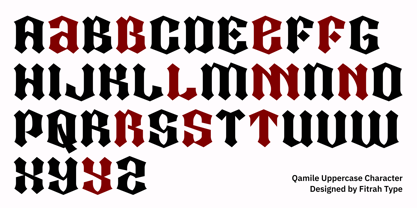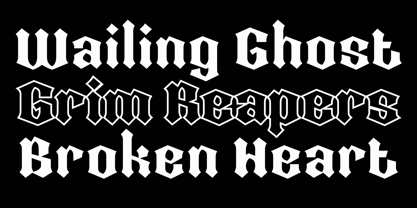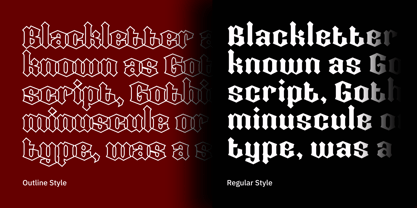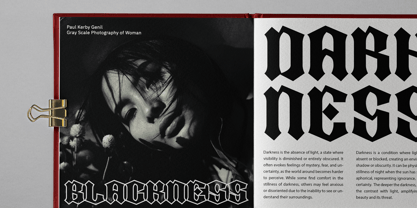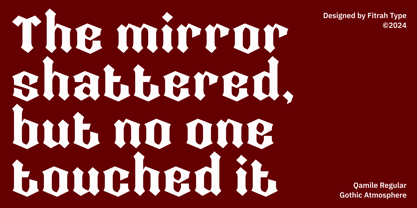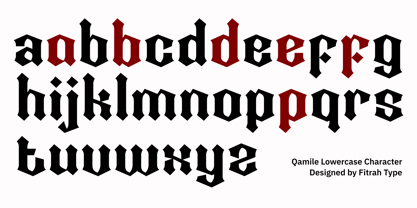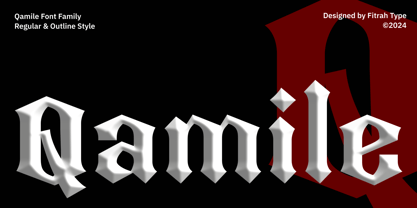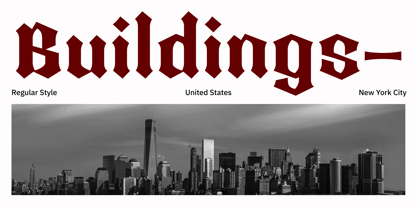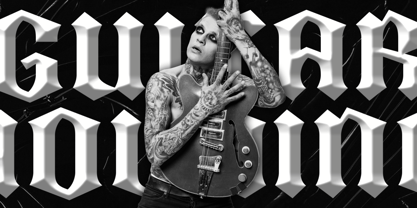
Qamile Gothic
by Fitrah Type
The Qamile Gothic Font Family was designed by Moch Fitrah Hidayat and published by Fitrah Type. Qamile Gothic contains 2 styles and family package options. More about this family
Qamile Gothic is a striking Blackletter font that captures the bold, authoritative spirit of Gothic script while embracing modern design sensibilities. Inspired by the traditional calligraphy of medieval manuscripts and early printed books, this typeface is perfect for projects that seek to evoke a sense of heritage, strength, and elegance.
Qamile Gothic